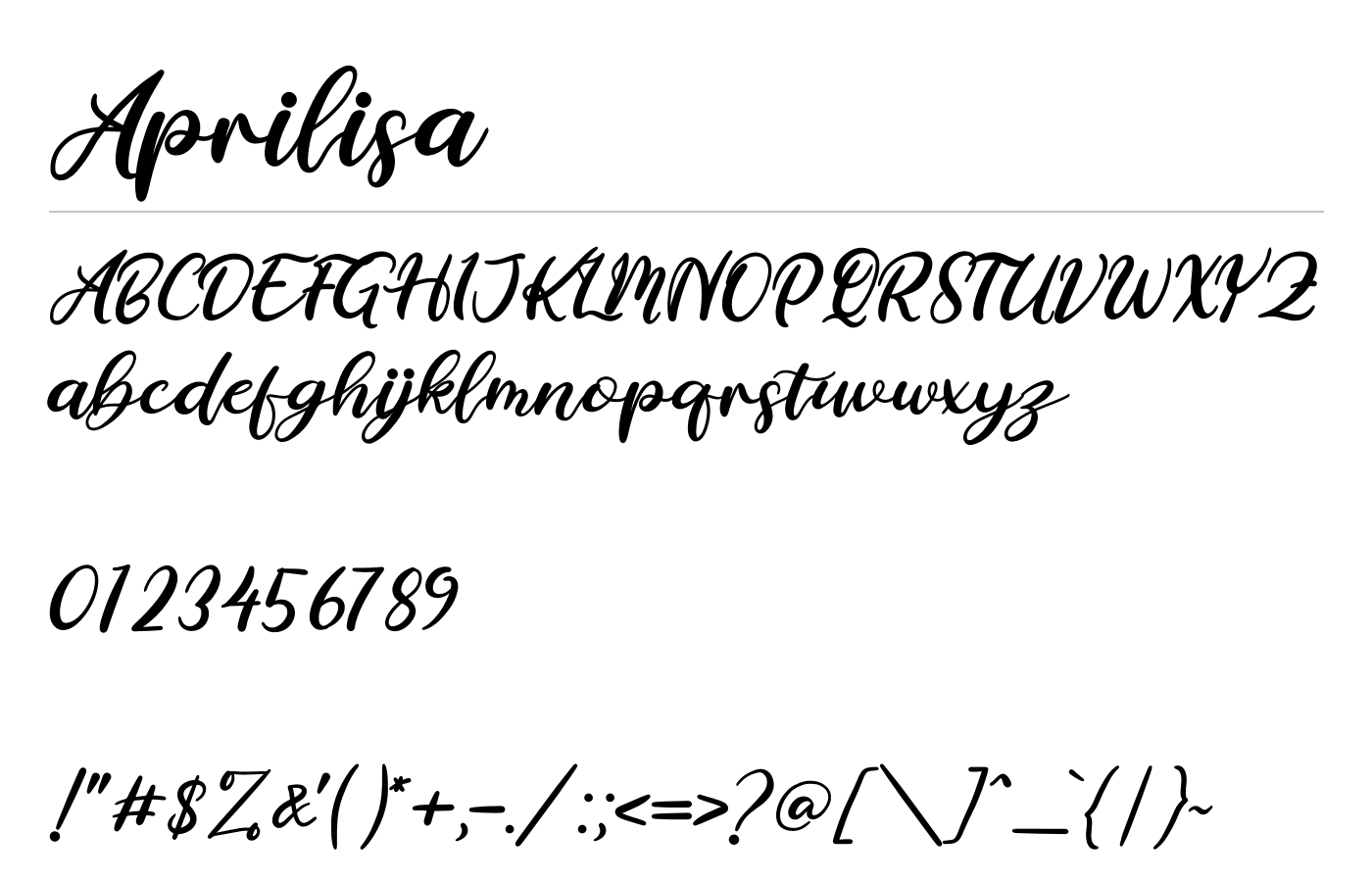
Aprilisa is an elegant script font with a smooth, flowing style that mimics natural handwriting with a modern touch. Its graceful strokes and balanced weight make it perfect for adding a personal, sophisticated feel to branding, invitations, and creative headlines. This font works well where a stylish yet approachable look is desired, combining readability with a charming, artistic flair.
Aprilisa Font
About Aprilisa Font